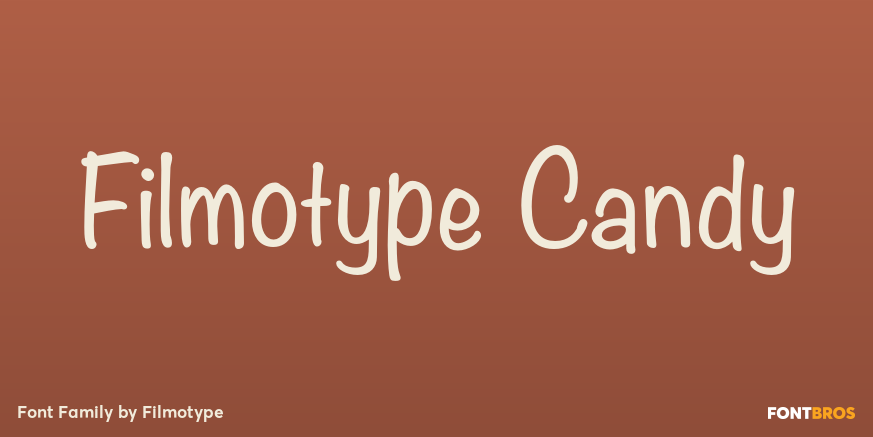
Filmotype Candy
About Filmotype Candy
Filmotype Candy picks off where her younger sister Filmotype Brooklyn left off. Without the ability to embolden type photographically using its machine, Filmotype Introduced a customer requested bold weight of Filmotype Alice in the late 1950s just as…